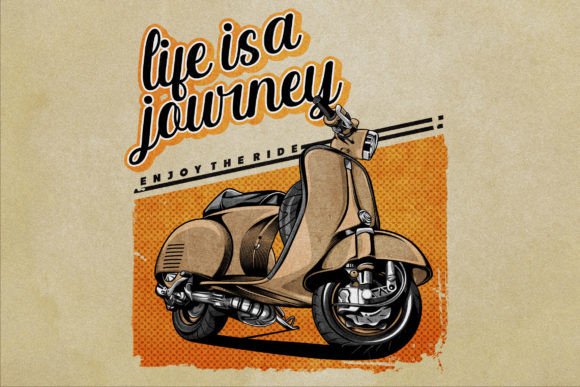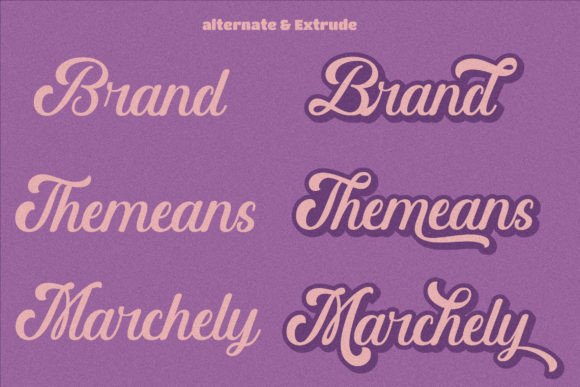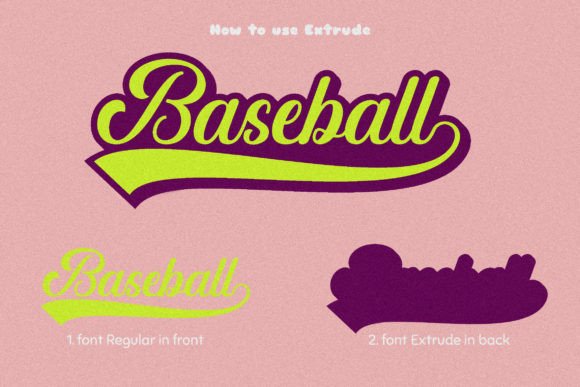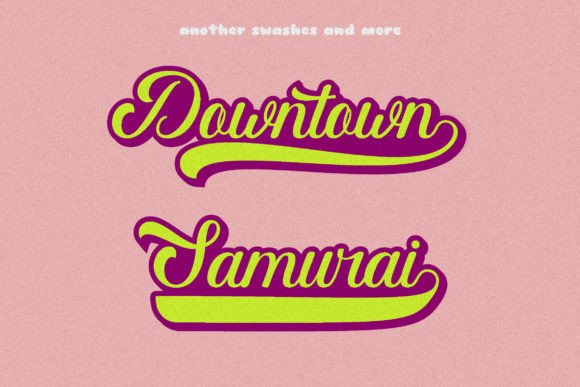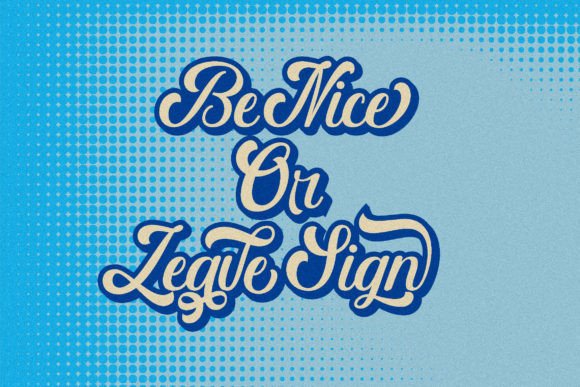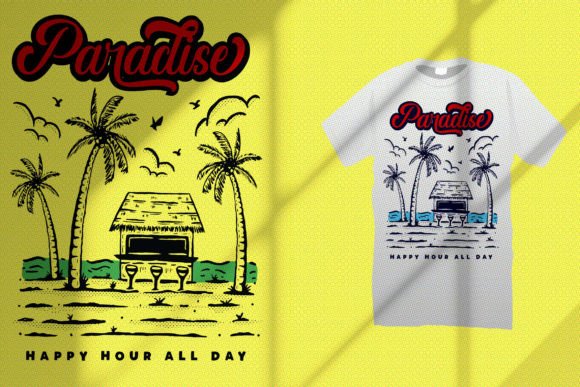
Introducing Dilemma Script: A Vintage Bold Script to Bring Back Nostalgia
Are you a designer or crafter looking for a font that can add a touch of nostalgia to your projects? Look no further than Dilemma Script, a vintage bold script that is sure to transport you back to a bygone era. This beautiful typeface is perfect for a wide range of applications, from logos and logotypes to t-shirts, vintage badges, retro quotes, branding, packaging, posters, and more.
The Charm of Dilemma Script
Dilemma Script is a carefully crafted font that embodies the essence of vintage typography. Its bold and expressive letterforms are designed to evoke a sense of nostalgia and timelessness, making it perfect for projects that require a touch of classic charm. Whether you’re looking to create a logo for a retro-themed business or add a vintage flair to your craft project, Dilemma Script is the perfect choice.
Key Features of Dilemma Script
So, what makes Dilemma Script so special? Here are just a few of its key features:
- PUA Encoded: Dilemma Script is PUA encoded, which means you can access all the glyphs and ligatures with ease. This makes it simple to use and customize the font to suit your needs.
- Vintage Bold Script: The font features a bold and expressive script style that is reminiscent of vintage typography.
- Multipurpose: Dilemma Script is perfect for a wide range of applications, from logos and branding to t-shirts, posters, and more.
- Easily Customizable: With PUA encoding, you can easily access and customize the font’s glyphs and ligatures to create unique and personalized designs.
Using Dilemma Script in Your Projects
So, how can you use Dilemma Script in your projects? Here are a few ideas to get you started:
- Logos and Branding: Use Dilemma Script to create a vintage-inspired logo for your business or brand. The font’s bold and expressive letterforms are perfect for creating a memorable and eye-catching logo.
- T-Shirts and Apparel: Add a touch of nostalgia to your t-shirts and apparel with Dilemma Script. The font’s vintage style is perfect for creating retro-themed designs that are sure to appeal to customers.
- Posters and Flyers: Use Dilemma Script to create eye-catching posters and flyers that are sure to grab attention. The font’s bold and expressive letterforms are perfect for creating striking headlines and titles.
- Vintage Badges and Labels: Create vintage-inspired badges and labels with Dilemma Script. The font’s distressed and worn look is perfect for creating authentic-looking vintage designs.
Why Choose Dilemma Script?
So, why should you choose Dilemma Script for your next project? Here are just a few reasons:
- Unique and Authentic: Dilemma Script is a unique and authentic font that is sure to add a touch of nostalgia to your projects.
- Easily Customizable: With PUA encoding, you can easily customize the font to suit your needs and create unique and personalized designs.
- Multipurpose: Dilemma Script is perfect for a wide range of applications, from logos and branding to t-shirts, posters, and more.
- High-Quality: The font is carefully crafted to ensure high-quality and crisp letterforms that are perfect for printing and digital use.
In conclusion, Dilemma Script is a beautiful vintage bold script that is perfect for designers and crafters looking to add a touch of nostalgia to their projects. With its PUA encoding, bold and expressive letterforms, and multipurpose design, Dilemma Script is the perfect choice for a wide range of applications. So why wait? Download Dilemma Script today and start creating stunning designs that are sure to transport you back to a bygone era!